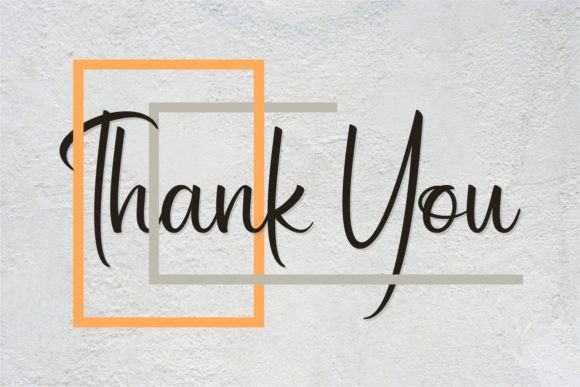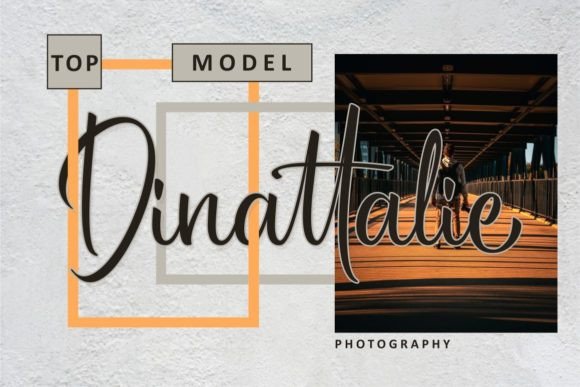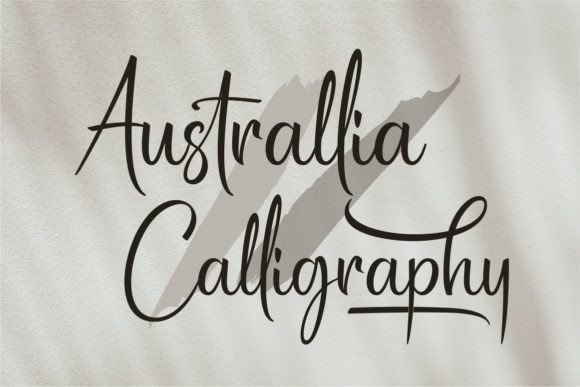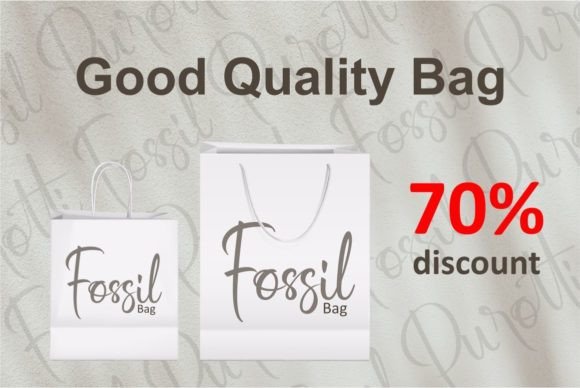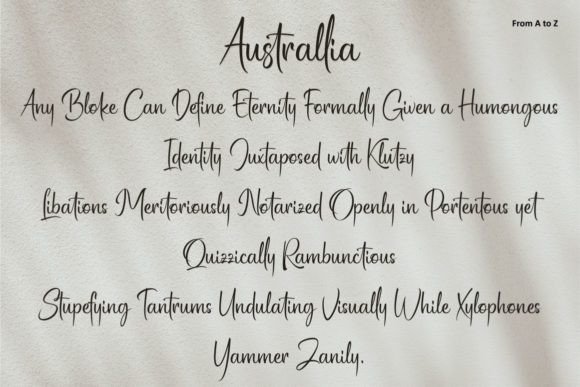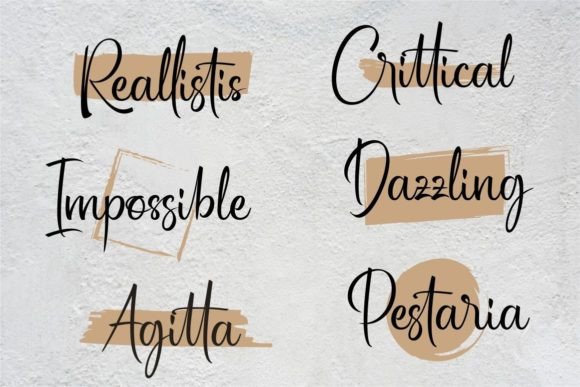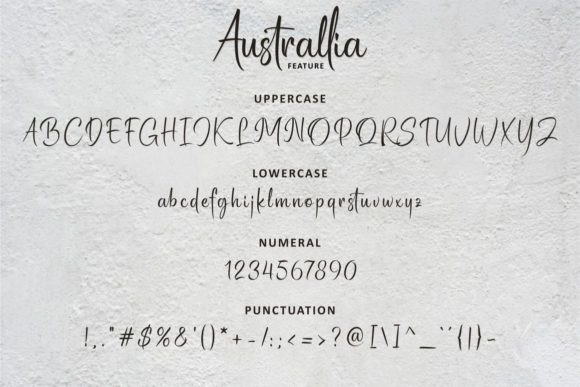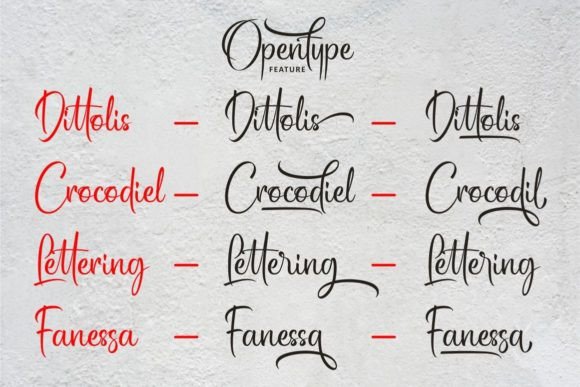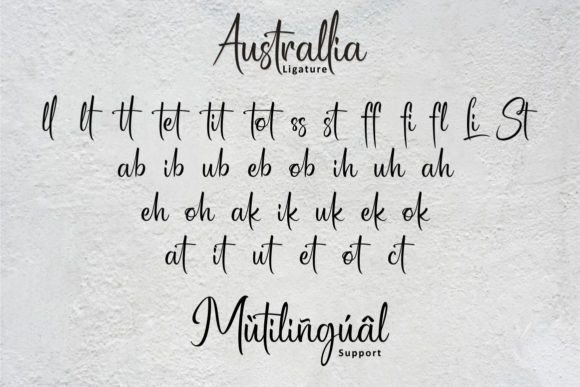
Australlia Font
About Australlia Font
“Introducing Australlia! Australlia is a robust script font meticulously crafted with hand lettering. It boasts a plethora of stylistic alternatives and swashes that empower you to create a customized design. This font possesses a unique appearance, making it ideal for branding, especially logotypes, as well as various design needs such as quotes, merchandise, packaging, business cards, and an array of other projects.
Australlia stands out for its strength and carefully executed hand lettering. The inclusion of numerous stylistic alternatives and swashes provides designers with a rich set of tools, allowing for creativity and customization in design projects. Whether you’re crafting a distinctive logo or working on a packaging design, Australlia offers the versatility needed for a range of applications.
The font’s uniqueness and robust aesthetic make it particularly suitable for branding purposes, especially for logotypes. Its strong script lends itself well to creating a memorable and impactful brand identity.
Beyond branding, Australlia extends its applicability to various design needs. Whether it’s quotes, merchandise, packaging, or business cards, this font brings a sense of individuality and character to the project.
In essence, Australlia is more than just a font; it’s a design tool that combines strength, uniqueness, and versatility. With its carefully crafted lettering and an abundance of stylistic elements, it provides designers with the means to create impactful and customized designs across a spectrum of creative projects.”